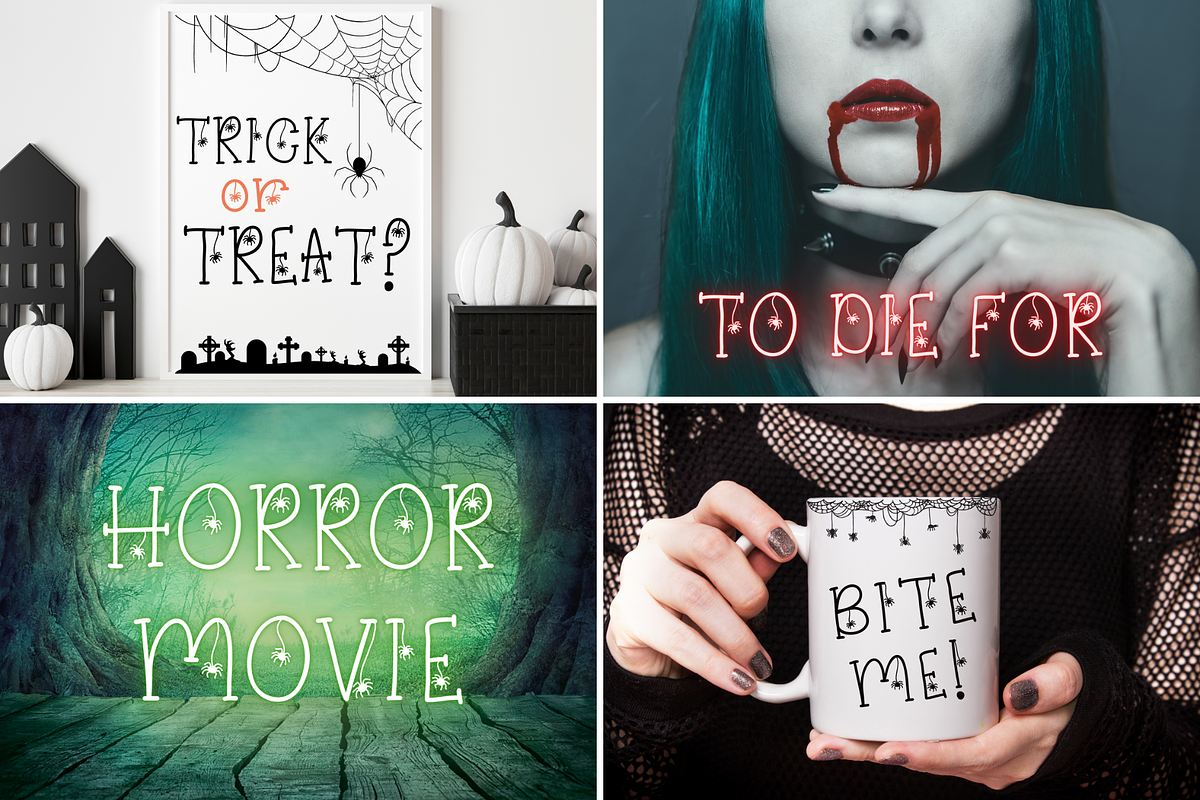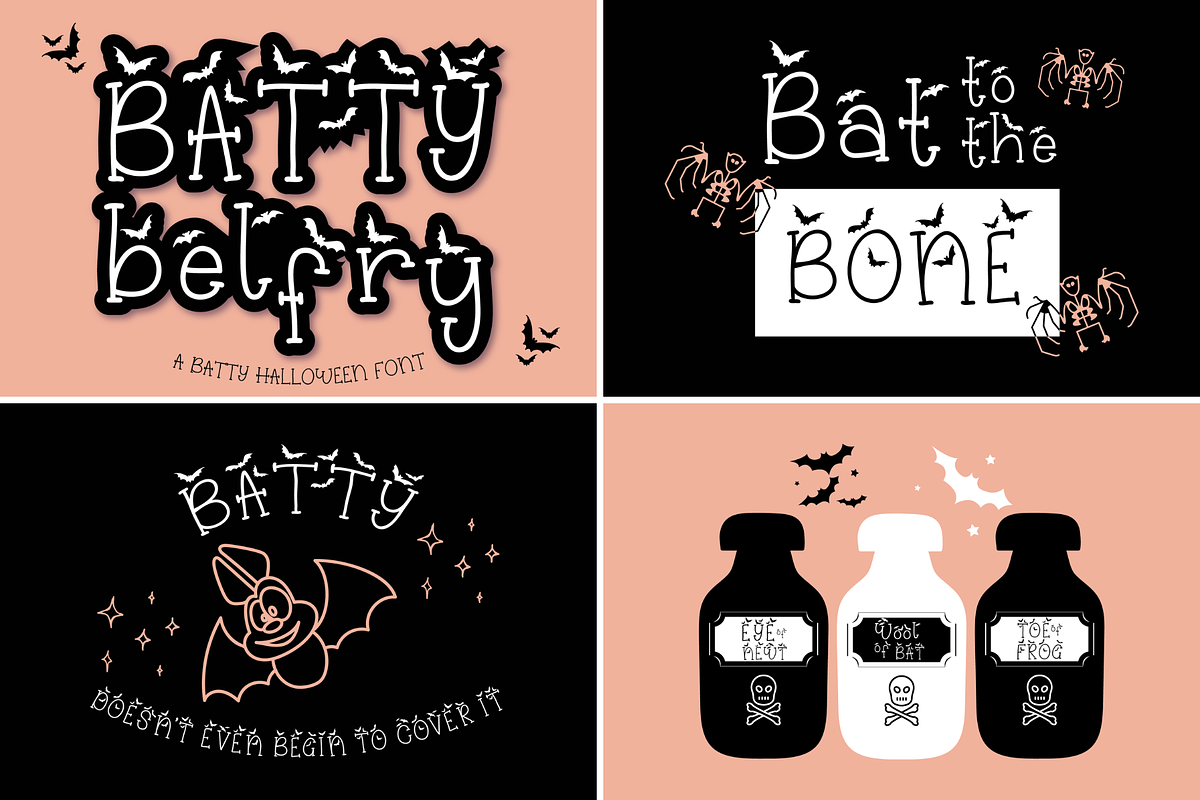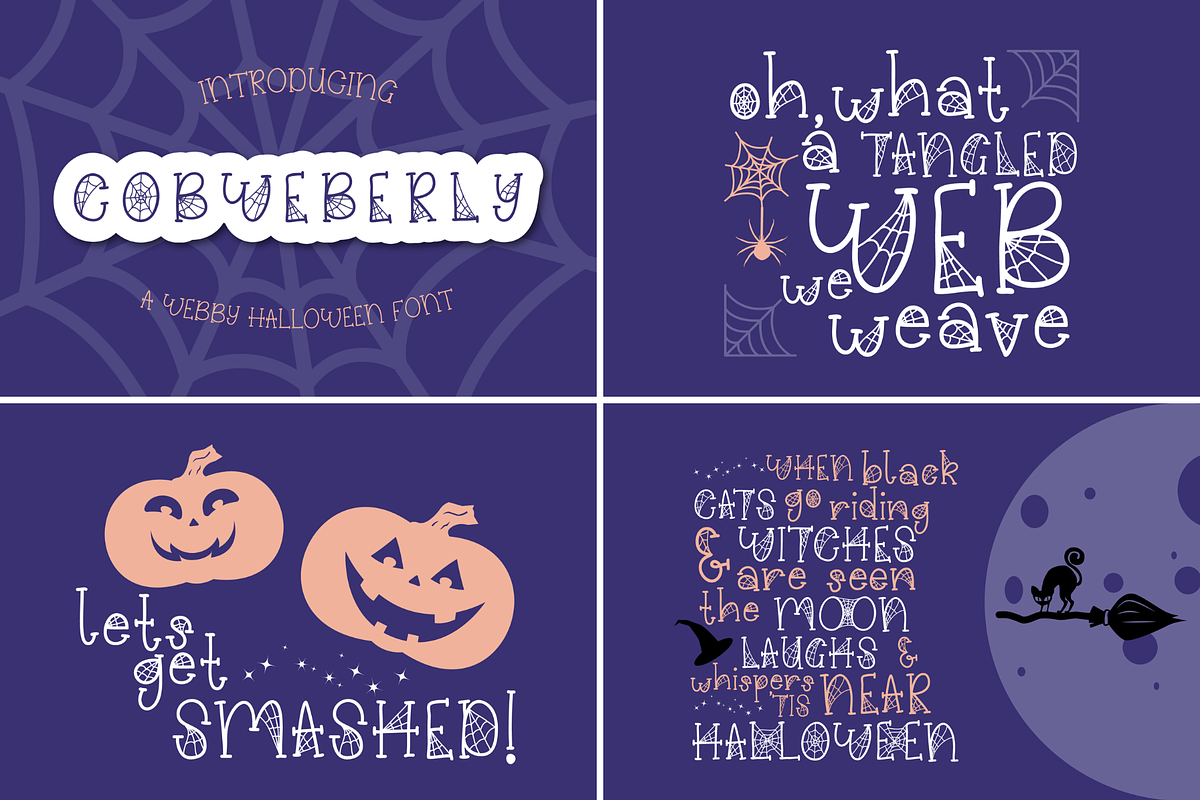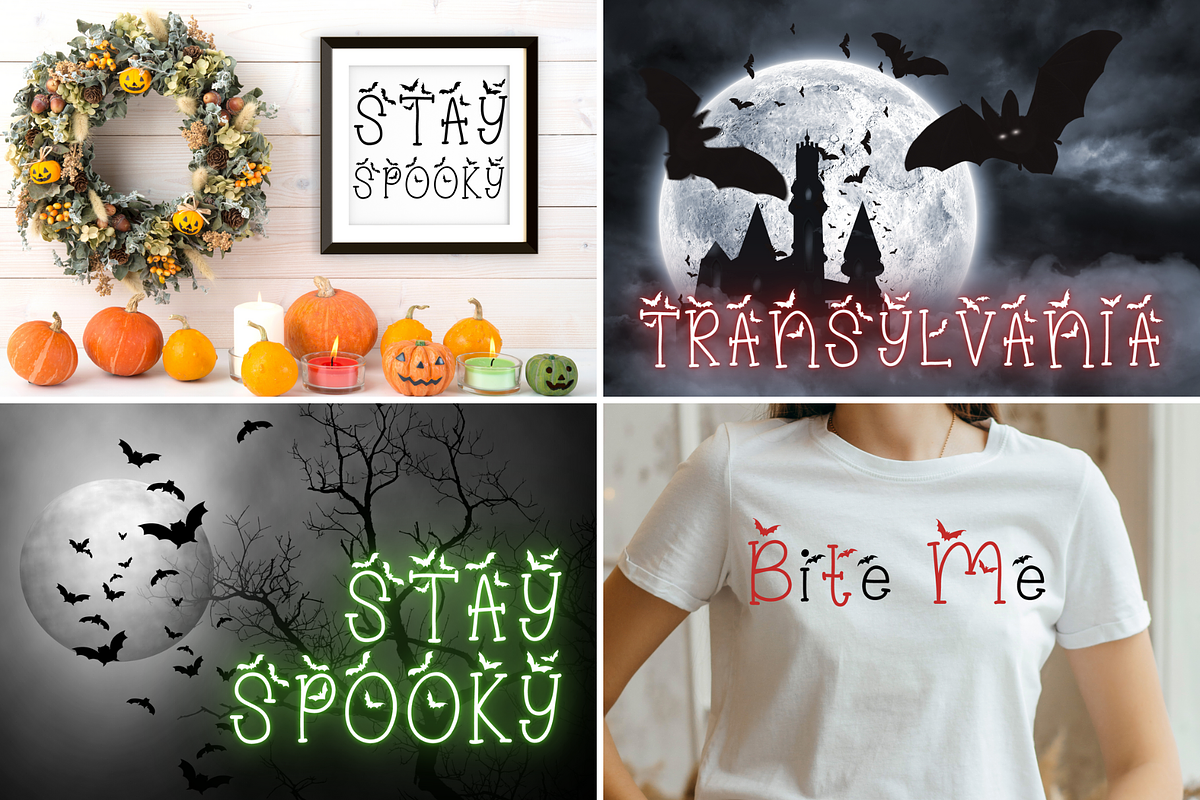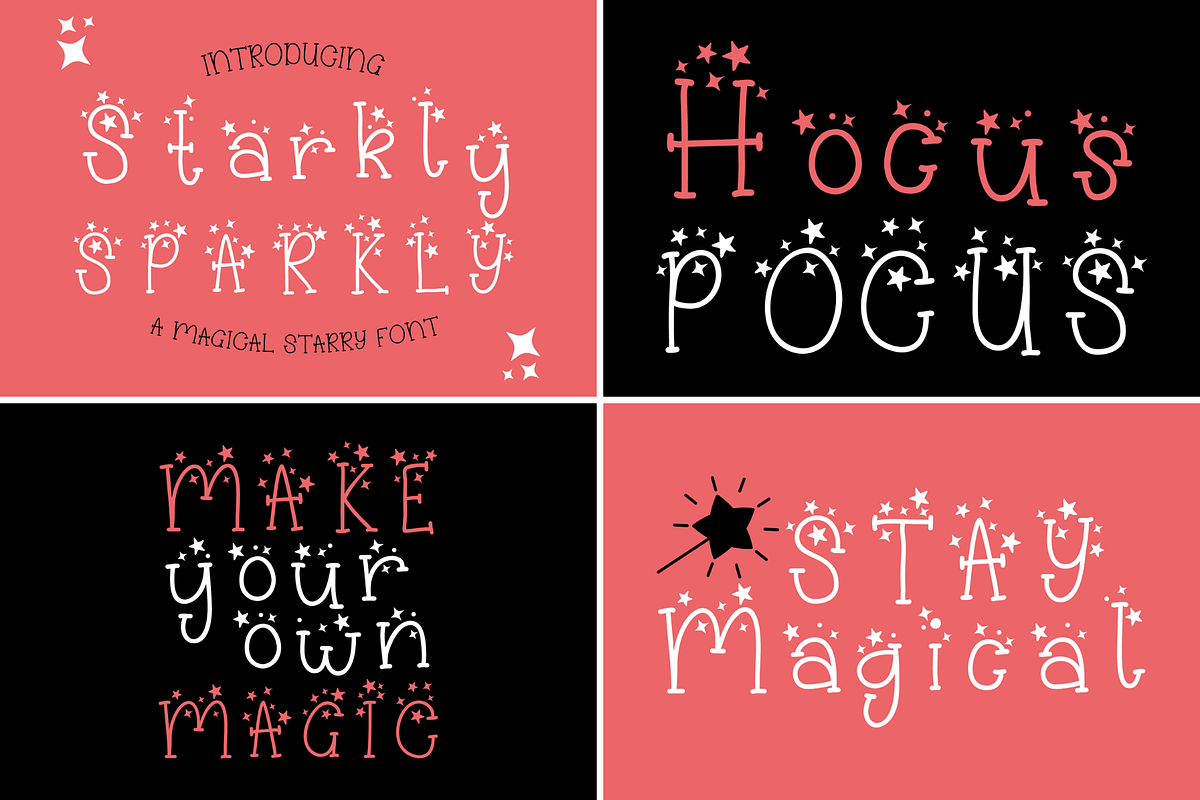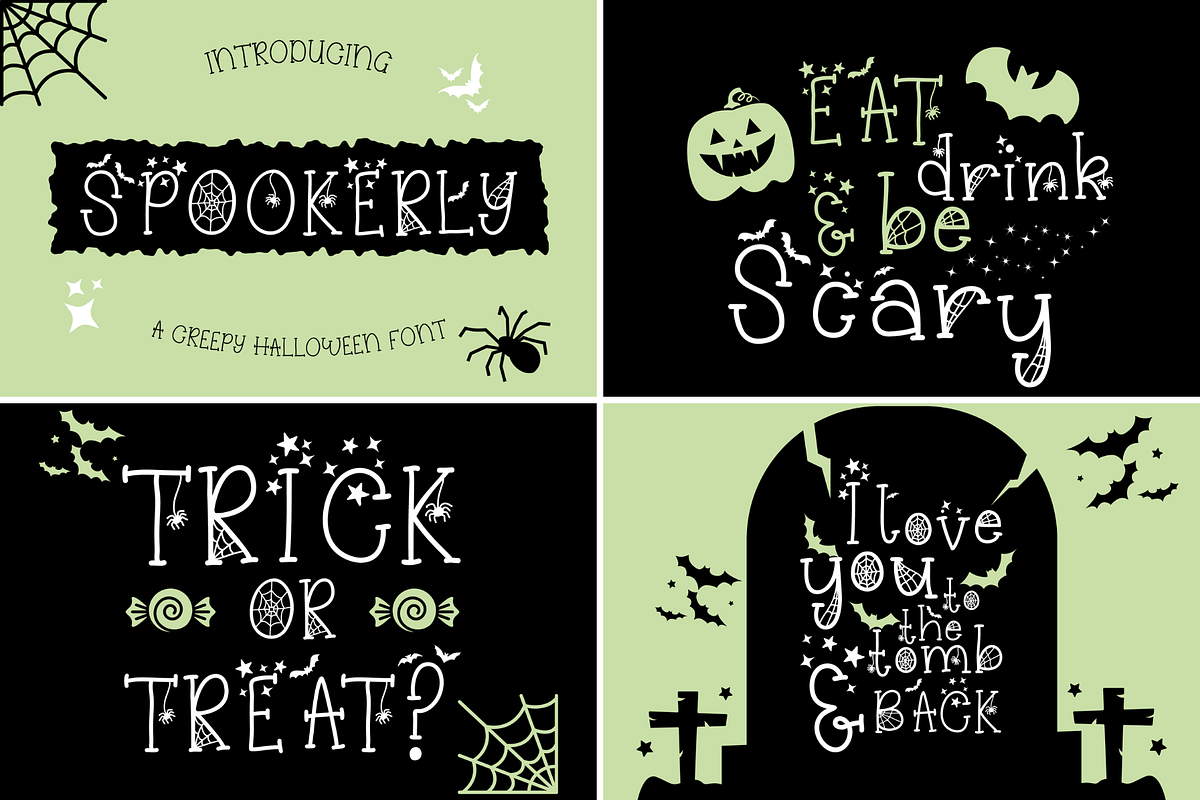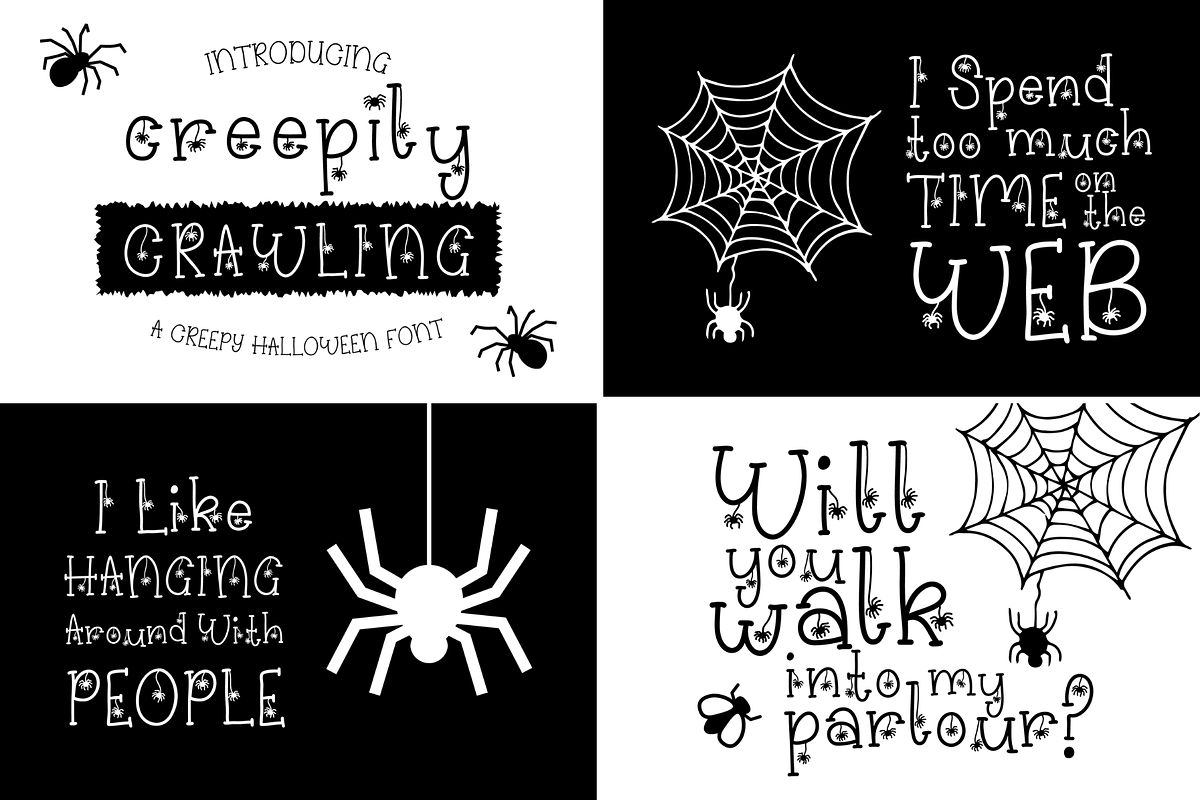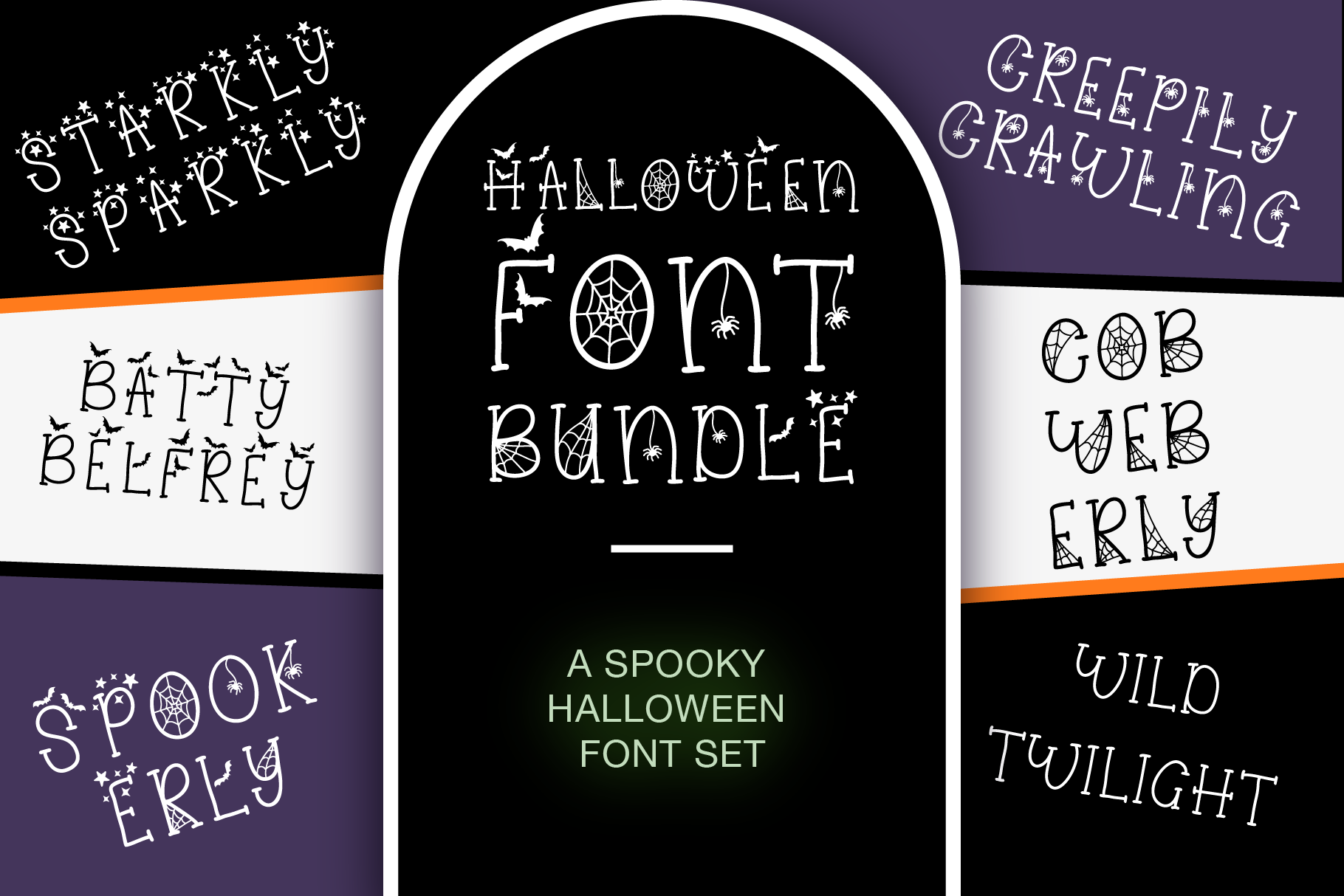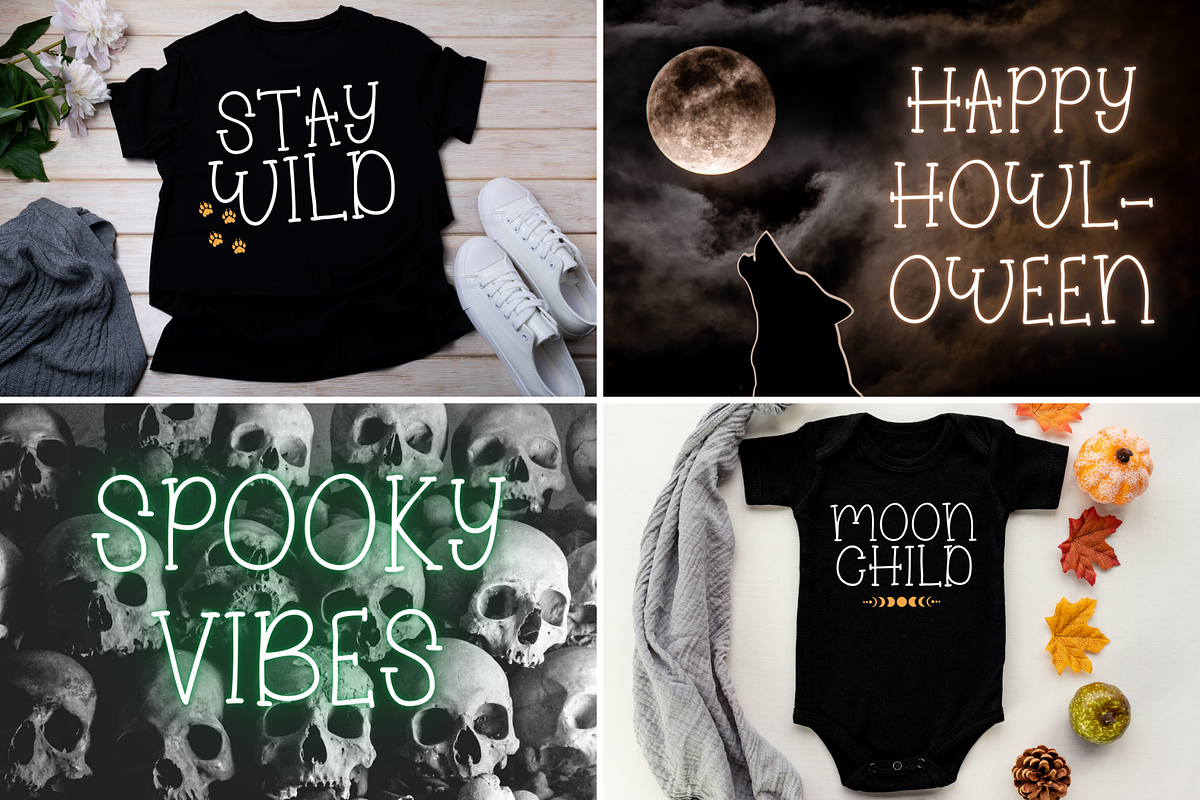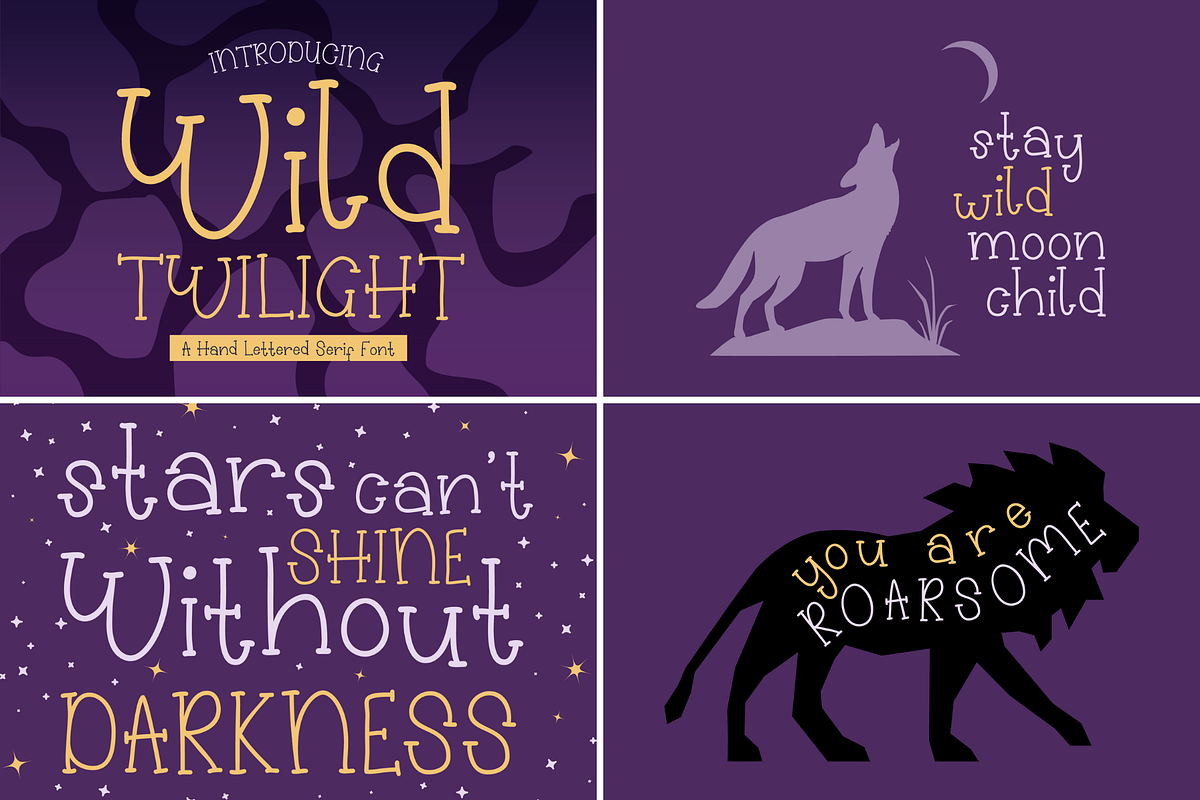
6 Spooky Halloween Fonts Bundle Set
6 Spooky Halloween Fonts Bundle
Looking for some spooky fonts to add to your Halloween design arsenal? Look no further than this spooky Halloween fonts bundle!
Featuring the following 6 spooky fonts:
- Spookerly
- Cobweb Font
- Creepily Crawling
- Batty Belfry
- Starkly Sparkly
- Wild Twilight
This font bundle has everything you need to create some truly eerie designs. Whether you're working on invitations, flyers, or even just a fun Halloween card, these fonts will help you add some serious spook factor to your work.